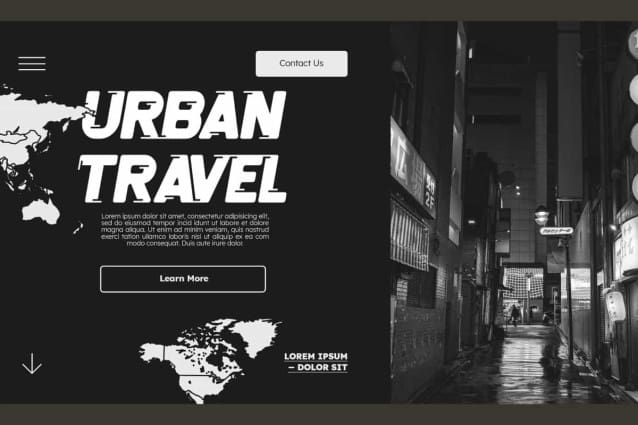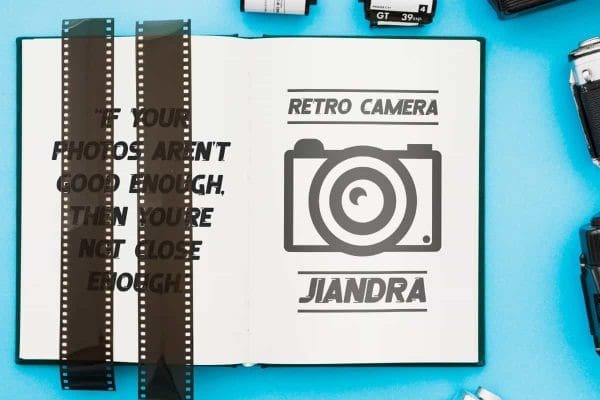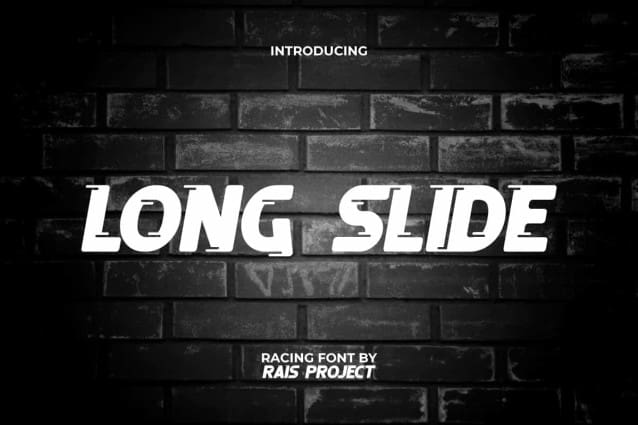
Long Slide Font
Long Slide Font is a modern speedy racing sporty display font with fast gaming style. There are additional lines on the edges of the letters which can give the impression of moving quickly in line with the theme. It will be good for any designs, such as advertisement, brand image, custom design, invitation, label, marketing material, poster, product packaging, quotes, signage, stationery, website page, and more!
Long Slide Font includes a full set of ALL CAPS for Uppercase and Lowercase Letters, Numerals, and large range of Punctuation. This awesome font with a racing vibe will be suitable for various industries, such as automotive, cafes, event or festival, fashion, game, photography, printing, publishing, sports, etc.